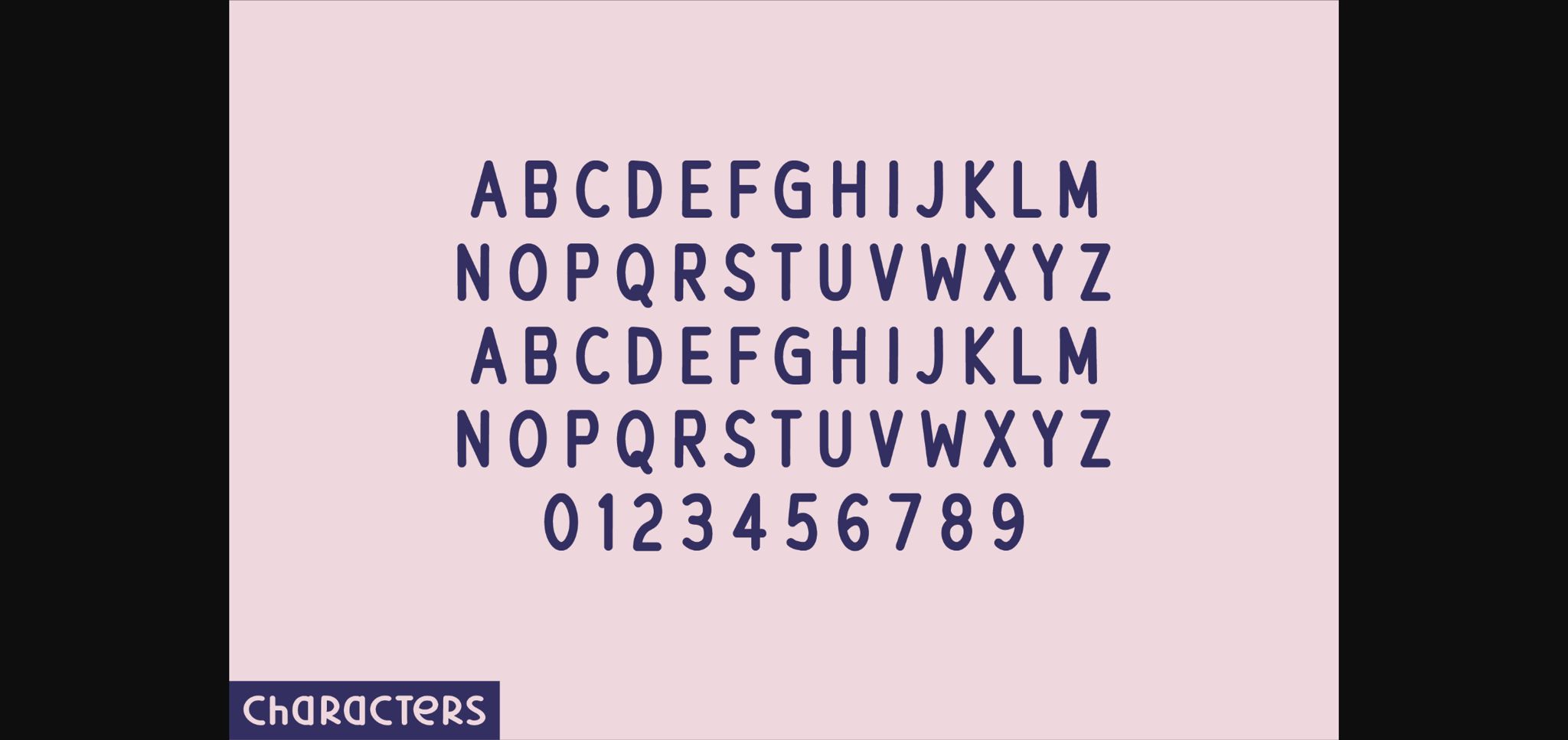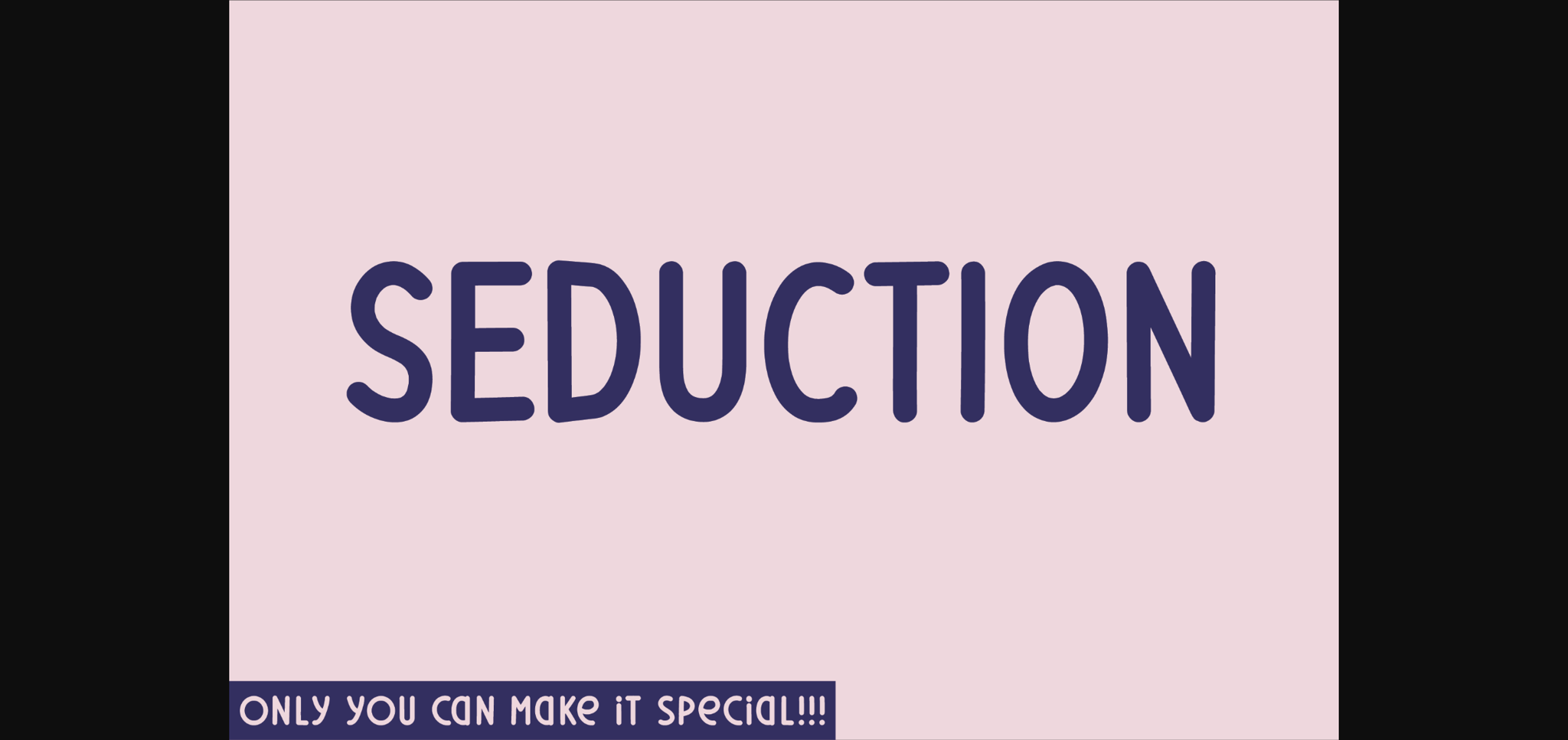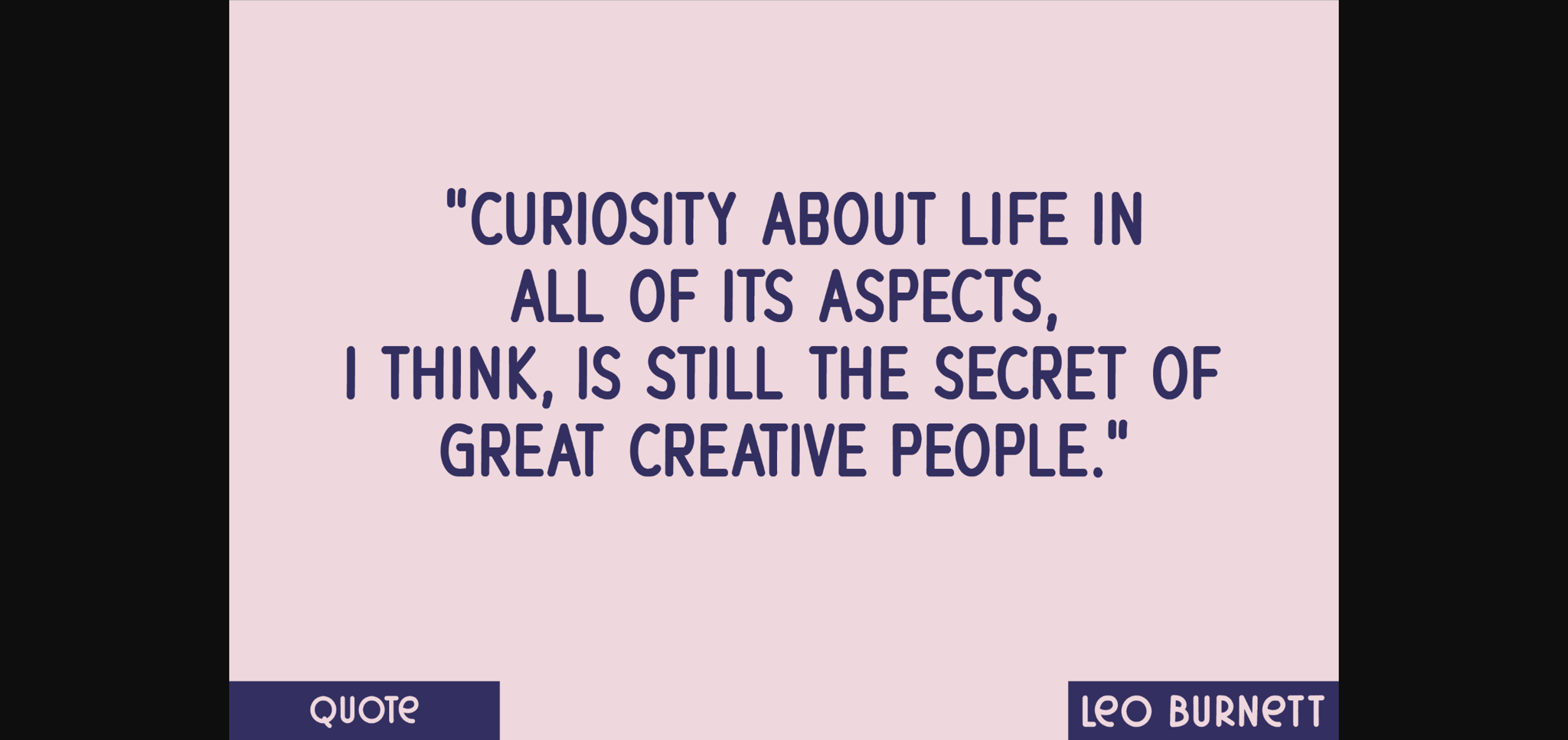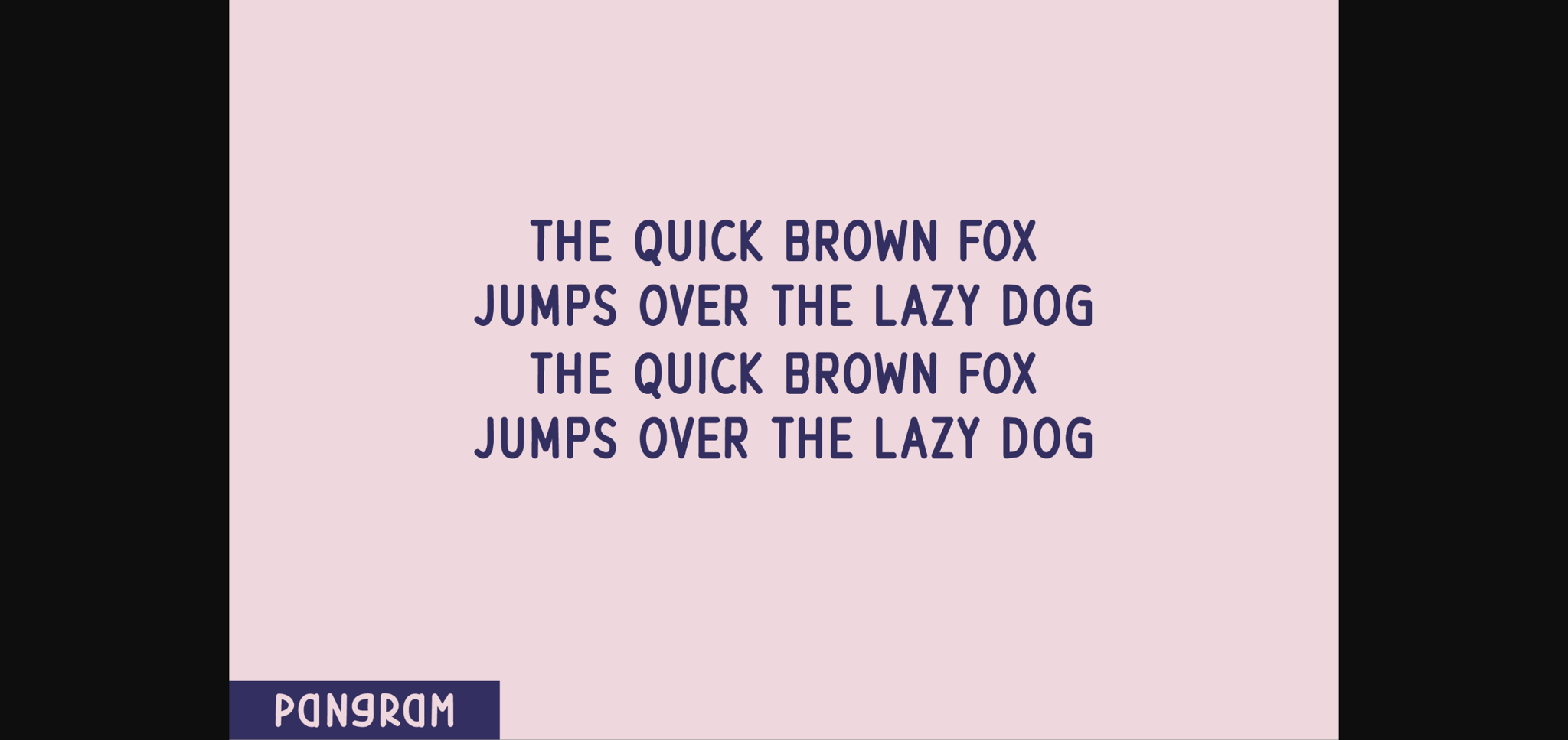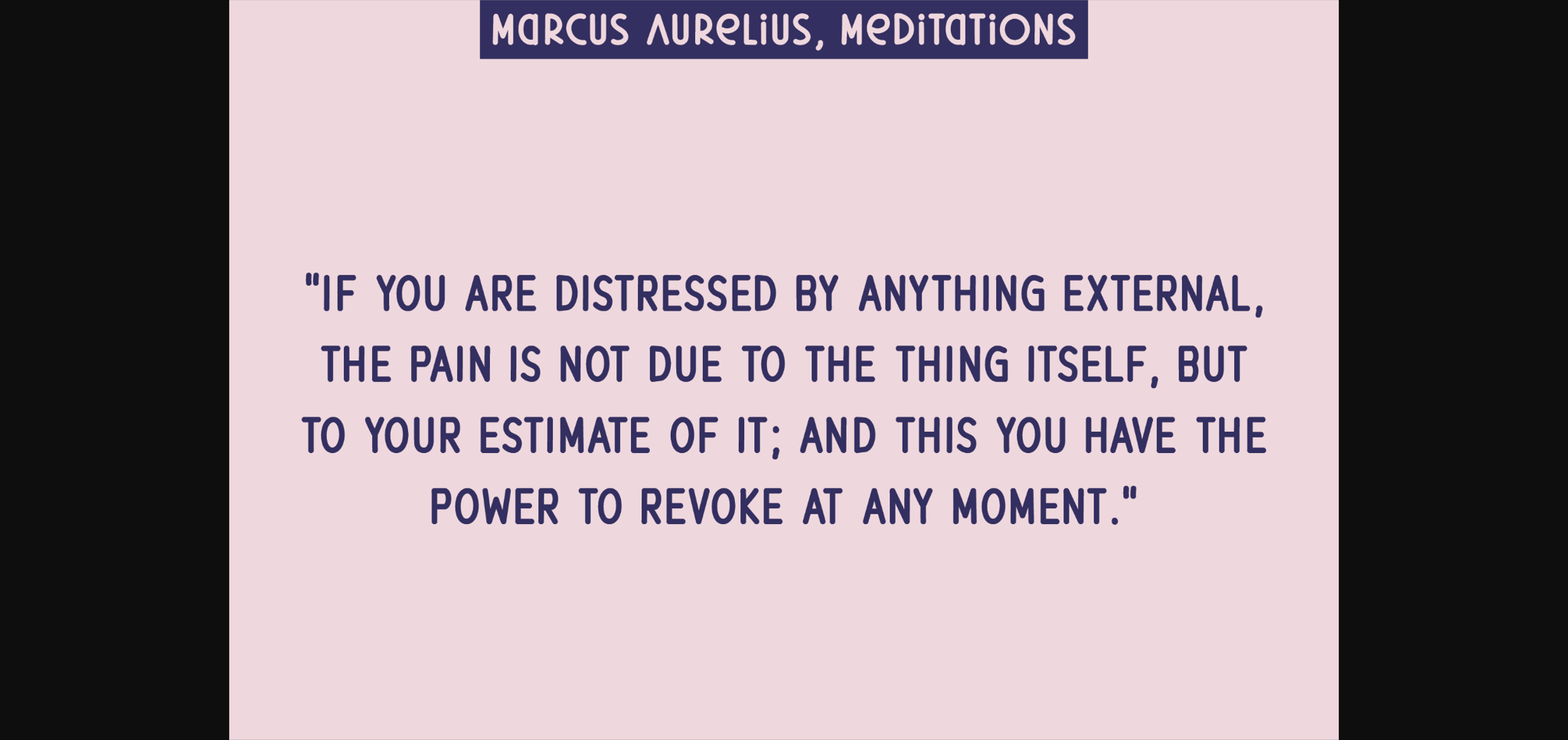
Seduction Font
About Seduction Font
Introducing Seduction, a charmingly unique sans serif display font. Embodying uppercase letters, numerical digits and full functionality, it reigns with versatile empowerment. Carefully crafted, each letter’s end is adorned with an adorable rounded contour, simulating an authentic handwriting feel. Whether you’re designing a minimalist blog or a chic invitation, Seduction captivates with a naturally sweet impression, adding a dash of cute sophistication to your visual stories. Reflect your aesthetic by choosing Seduction – a font that goes beyond the roles of mere letters and numbers to become a crucial design element itself.